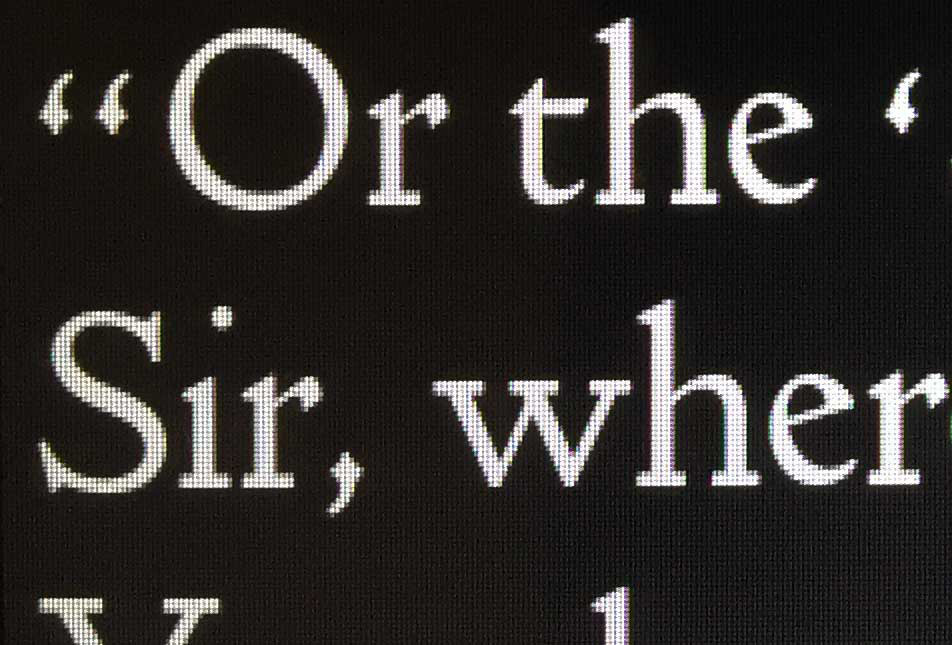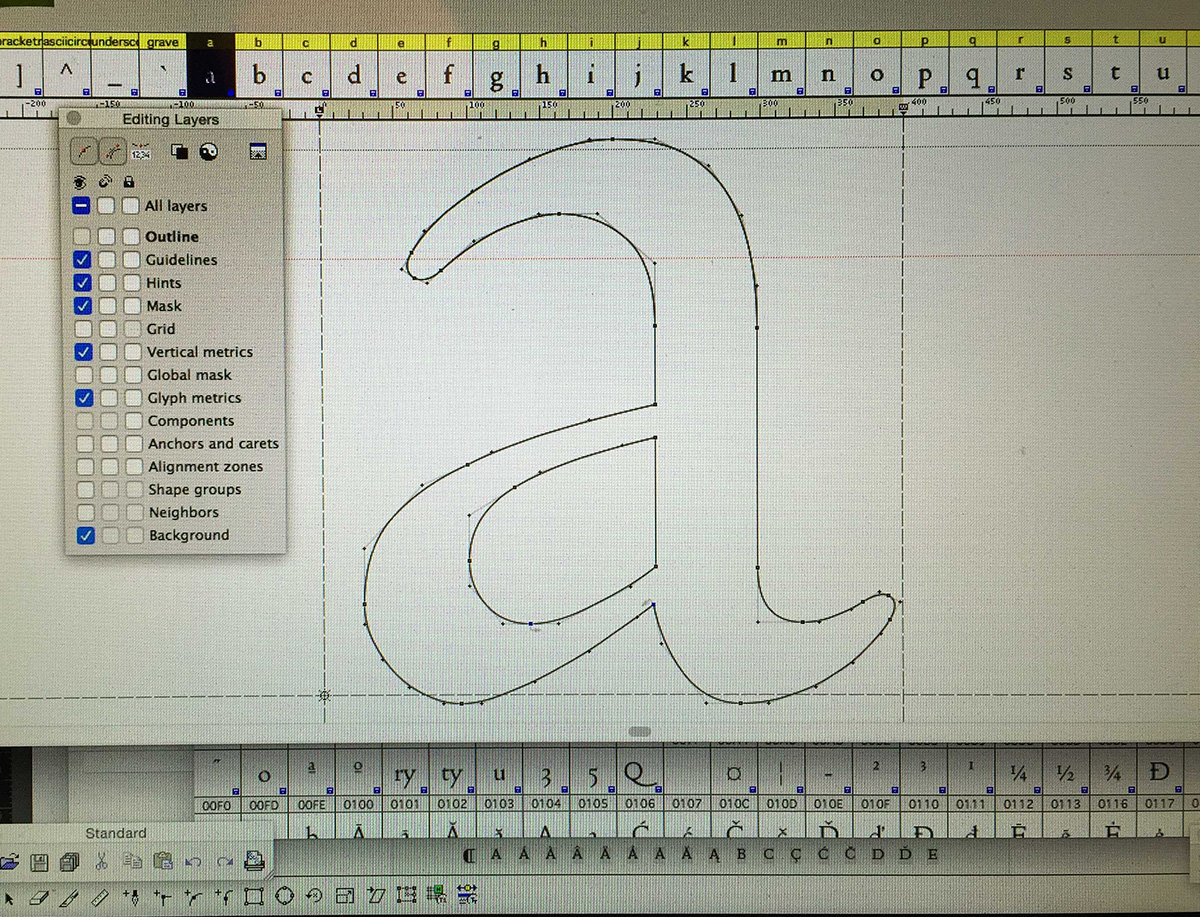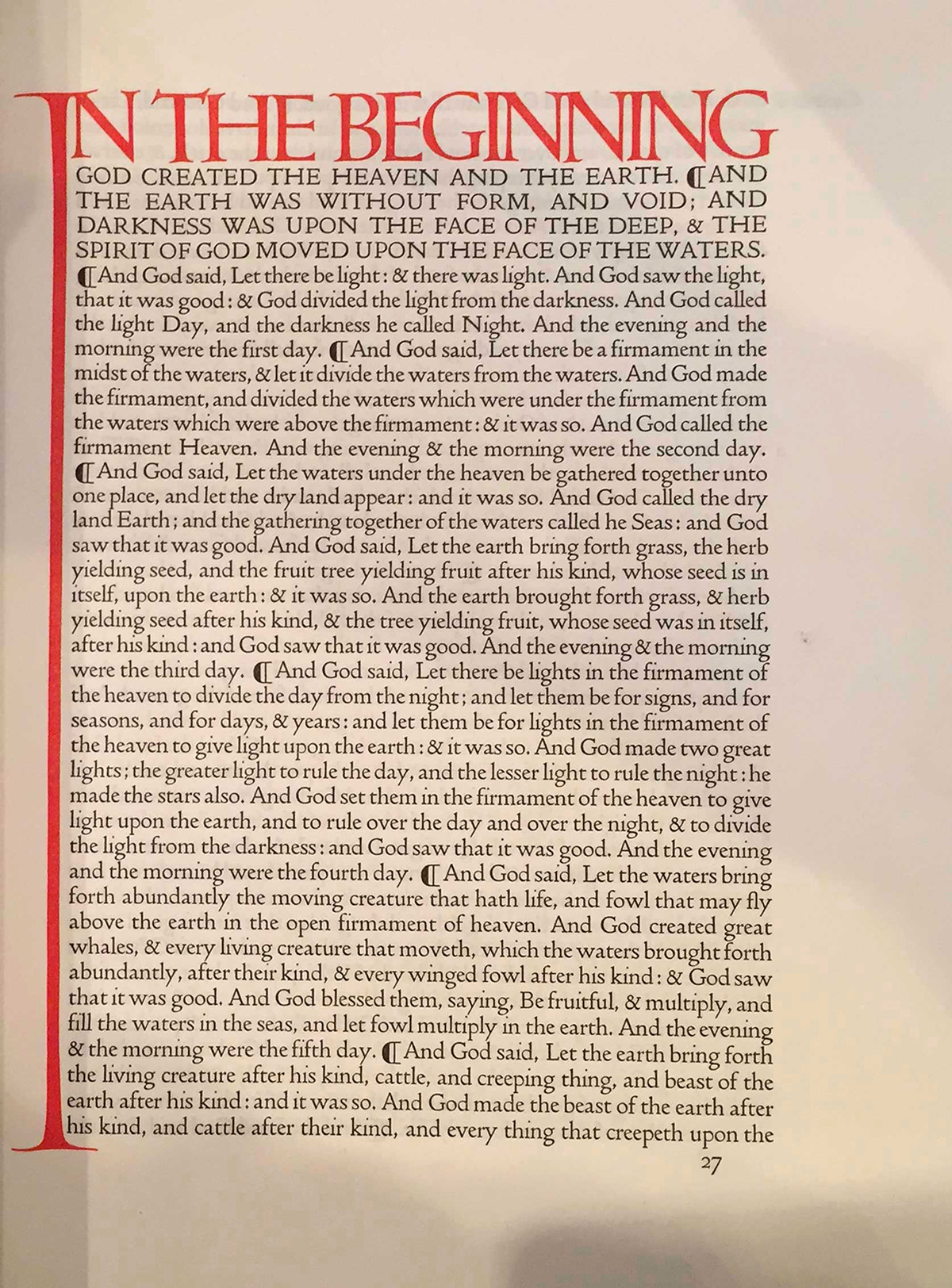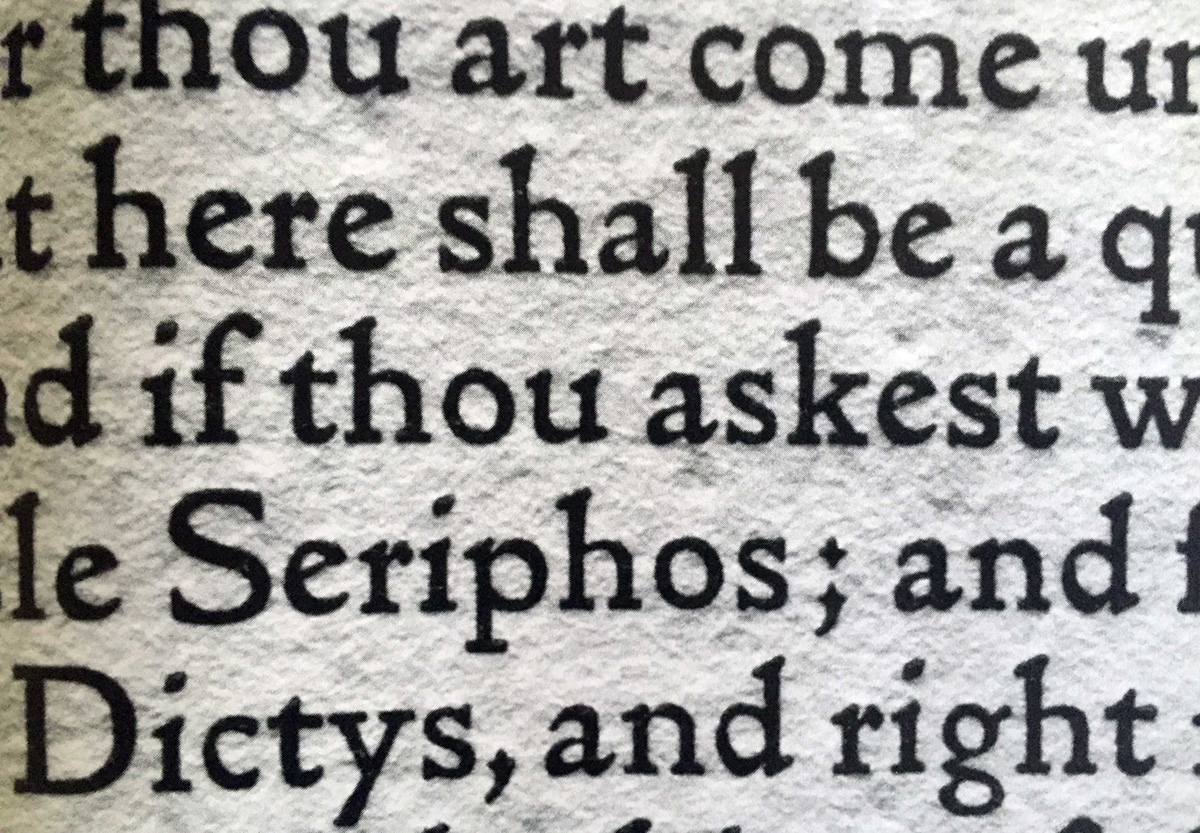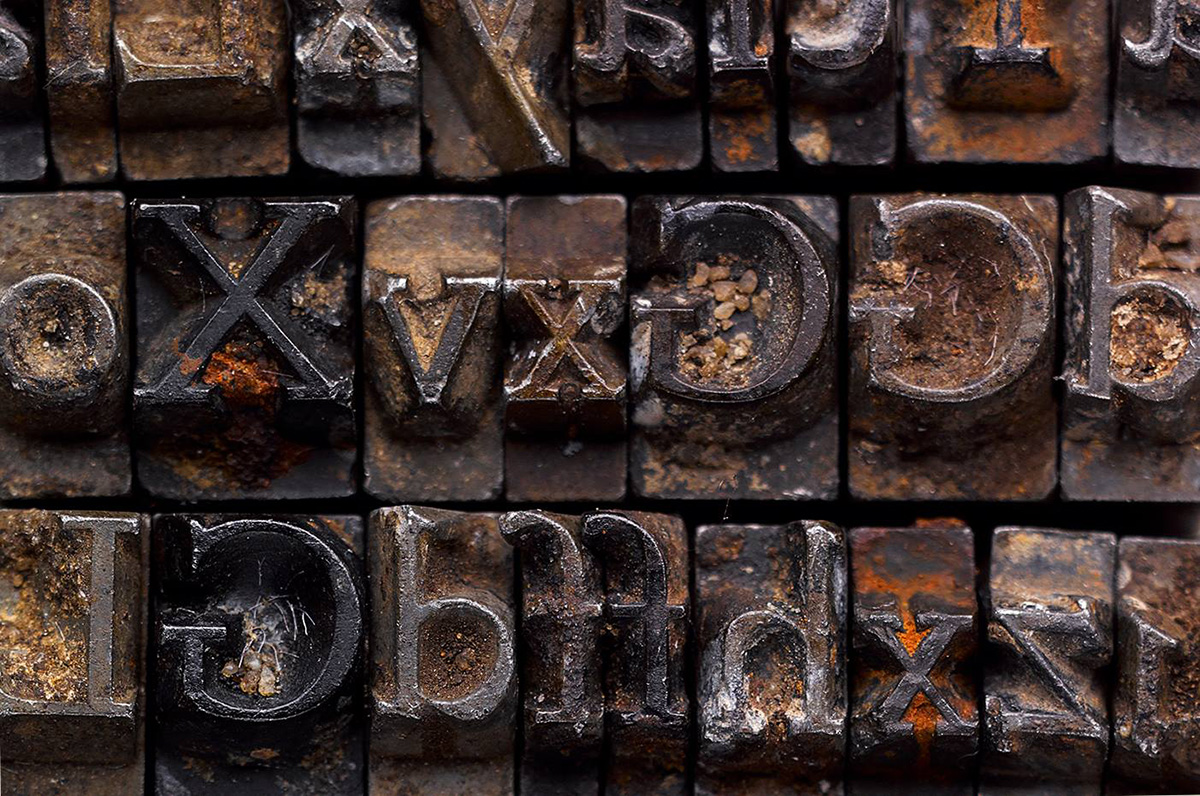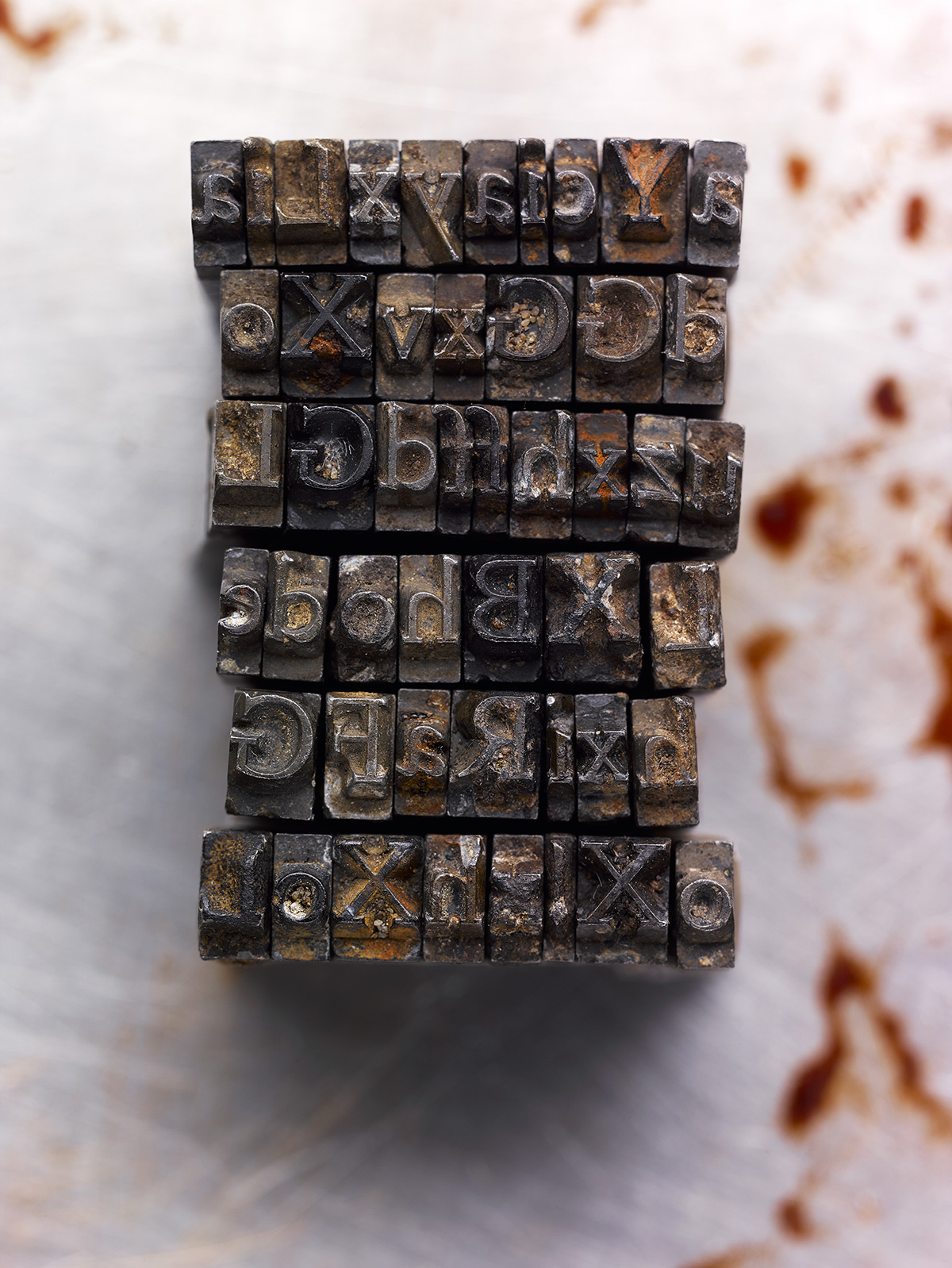
15 things you didn’t know about the Doves Press & its Type
The Doves Press was founded in 1900 in Hammersmith, London, by Thomas James Cobden-Sanderson, with Emery Walker joining him the same year as his partner. During almost seventeen years of operation the Press produced some of the finest examples of twentieth century typography, the distinguishing and most celebrated feature of its books being a specially devised fount of type. Much wrangling over the fate of the type followed a prolonged falling-out between the two men, culminating in the partnership being dissolved in 1909. Their mutual friend Sydney Cockerell stepped in to mediate and the matter of the type was settled, the subsequent agreement stating that Codben-Sanderson should have use of it for printing Doves Press publications until his death, whereupon ownership would transfer to Emery Walker. However, when the Press closed in 1917, an epitaph appeared in its final publication announcing that Cobden-Sanderson had ‘bequeathed’ the Doves Press Fount of Type to the bed of the River Thames.
After releasing his digital facsimile font of the Doves type in 2013, Robert Green decided to try and find the lost metal fount disposed of by Cobden-Sanderson between 1916-17. In 2014, aided by a diving team from the Port of London Authority, Green recovered 151 of the sorts that Cobden-Sanderson had thrown over Hammersmith Bridge from their resting place on the riverbed.
Thomas James Cobden-Sanderson
1. The Doves Press, established in 1900 by T.J. Cobden-Sanderson, was partly inspired by William Morris’s Kelmscott Press, which ceased operating after Morris’s death in 1896.
The Doves Press was also conceived as a reaction against Kelmscott. Cobden-Sanderson’s main criticism of Morris’s endeavour? ‘I cannot get beyond the typography. The thing intended to be conveyed will ever be “intended to be conveyed”, and never will be conveyed!’.
Although Morris’s friend, Cobden-Sanderson was alone in Arts & Crafts circles in criticising him. He was frequently rather scathing, being especially disparaging of Morris’s obsession with the Medieval past: ‘Men of today, who affect the forms of other times, have their eyes wholly or partially closed.’
Doves Type
Eric Gill Inscription
2. In fact William Morris, T.J. Cobden-Sanderson, Emery Walker and another Doves Press contributor, calligrapher Edward Johnston, all lived within a few hundred meters of each other in Hammersmith, London.
Both William Morris and Emery Walker had been Cobden-Sanderson’s tenants at some point. In 1893, William Morris briefly rented rooms for his Kelmscott Press that Cobden-Sanderson sublet to him at 15 Upper Mall, while for a period throughout their dispute over the type, Walker continued operating part of his photo-engraving business at 13 Upper Mall, also leased from Cobden-Sanderson.
In 1903, when the Cobden-Sanderson’s moved to 24 Upper Mall (next door to William Morris’s former home, Kelmscott House) Walker moved a few doors down from where he had lived at 3 Hammersmith Terrace (next door to the Doves Press premises at number 1) into Cobden-Sanderson’s old rented house at No. 7. This left number 3 free for the newly-wed Edward Johnston to move into.
Finally – if that’s not complicated enough – from 1905, Eric Gill lived within a stone’s throw away in Hammersmith’s Black Lion Lane. Eric Gill carved the print-ready woodblocks for many of the calligraphic titles that Edward Johnston had designed for the Doves Press.
At the turn of the 20th century, three streets in West London decided the course of English typography.
William Morris
3. Having been made Hon. Secretary of the Arts and Crafts Exhibition Society in 1888, it was Cobden-Sanderson who had given the Society its name, and consequently labelled a whole movement.
4. Six talks were given at the Society’s first exhibition, two on the book arts. On 15 November and Emery Walker spoke on ‘Letterpress Printing and Illustration’, and on 22 November T. J. Cobden-Sanderson lectured on ‘Bookbinding’. In attendance that evening were George Bernard Shaw, Oscar Wilde — who wrote a glowing review for the Pall Mall Gazette — and William Morris.
It was the public exposition of the principles of good typography by Walker which awakened William Morris’s dormant enthusiasm for printing, setting off a chain of events that lead to Monotype, American Typefounders and others reviving historical printing types like Baskerville, Bembo, Blado and Garamond. ‘The evening of 15 November was, therefore, an unexpectedly momentous occasion: many historians have argued that the modern revival of fine printing can be dated precisely from Walker’s lecture’ says Morris expert William S. Peterson.
5. Both William Morris’s Golden type and the Doves type were based on the same enlargements of historical types that Walker had made from books owned by William Morris; Nicholas Jenson’s 1476 edition of Pliny’s Natural History & Aretenius’s History of Florence, printed the same year by Jacobus Rubeus.
Both types are considered to be ‘Jensons’. Morris’s fattened-up, ‘gothicised’ Golden Type — containing serifs taken from Black Letter forms — became the model for Venetian founts of the late 19th century, including the American Type Founders/Phinney Jenson and those of subsequent private presses, including Vale’s Roman and Essex House Press’ Endeavour.
However after 1900, the slimmed down Doves became the benchmark for Venetian style types, inspiring many including the Dolphin, Cranach and Brook types (in slimness at least). That is, until the arrival in 1915 of the greatest of all 20th century Venetians, Bruce Rogers’ Centaur.
Digital Doves
Emery Walker